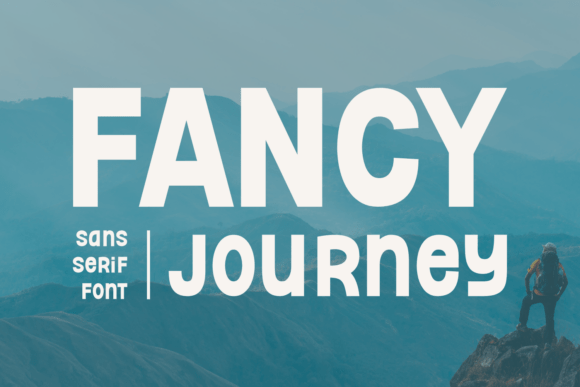
Fancy Journey Font: The Perfect Choice for Stunning Headlines and Poster Content
Are you looking for a font that can add a touch of playfulness and brightness to your designs? Look no further than the Fancy Journey font. This cute sans serif font is ideal for creating stunning headlines or poster content that is sure to grab attention. In this article, we’ll take a closer look at the Fancy Journey font, its features, and how it can be used to create amazing designs.
What is Fancy Journey Font?
Fancy Journey is a modern sans serif font that is designed to bring a sense of fun and playfulness to your designs. Its bright and cheerful energy makes it perfect for a range of applications, from summer invitations to holiday stickers. The font is clean, simple, and easy to read, making it ideal for use in headlines, titles, and short paragraphs of text.
Key Features of Fancy Journey Font
The Fancy Journey font has several key features that make it stand out from other fonts. Some of its notable features include:
- Clean and Simple Design: The font has a clean and simple design that makes it easy to read and understand.
- Playful Energy: The font has a playful energy that makes it perfect for designs that require a touch of fun and whimsy.
- Sans Serif: The font is a sans serif font, which means it doesn’t have any decorative lines or flourishes.
- Bright and Cheerful: The font is bright and cheerful, making it perfect for designs that require a pop of color and energy.
Uses of Fancy Journey Font
The Fancy Journey font is versatile and can be used for a range of applications. Some of the most popular uses of the font include:
- Summer Invitations: The font is perfect for creating summer invitations that are fun, playful, and eye-catching.
- Holiday Stickers: The font can be used to create holiday stickers that are bright, cheerful, and fun.
- Poster Content: The font is ideal for creating stunning poster content that grabs attention and communicates a message.
- Headlines: The font can be used to create headlines that are bold, playful, and eye-catching.
Benefits of Using Fancy Journey Font
There are several benefits to using the Fancy Journey font in your designs. Some of the most notable benefits include:
- Unique and Eye-Catching: The font is unique and eye-catching, making it perfect for designs that require a touch of personality.
- Easy to Read: The font is easy to read, making it perfect for use in headlines, titles, and short paragraphs of text.
- Versatile: The font is versatile and can be used for a range of applications, from summer invitations to holiday stickers.
- Modern and Fresh: The font has a modern and fresh feel, making it perfect for designs that require a contemporary look and feel.
In conclusion, the Fancy Journey font is a versatile and fun font that is perfect for creating stunning headlines or poster content. Its bright and playful energy makes it ideal for a range of applications, from summer invitations to holiday stickers. With its clean and simple design, the font is easy to read and understand, making it perfect for use in headlines, titles, and short paragraphs of text.
- What is the Fancy Journey font? The Fancy Journey font is a modern sans serif font that is designed to bring a sense of fun and playfulness to your designs.